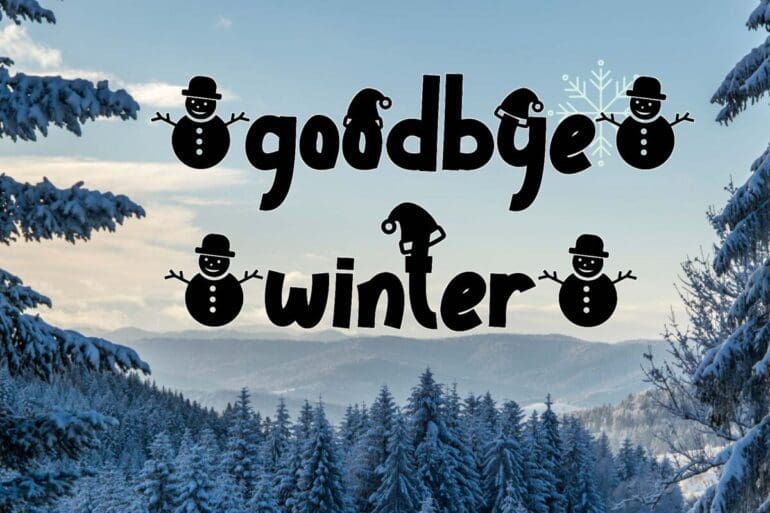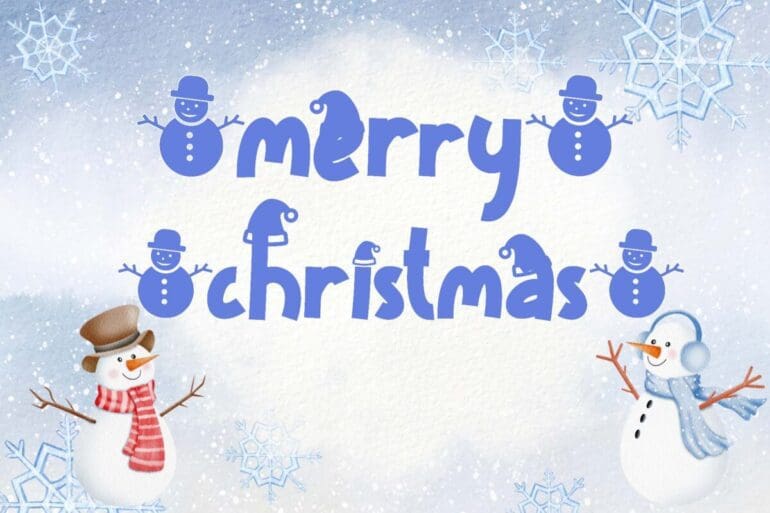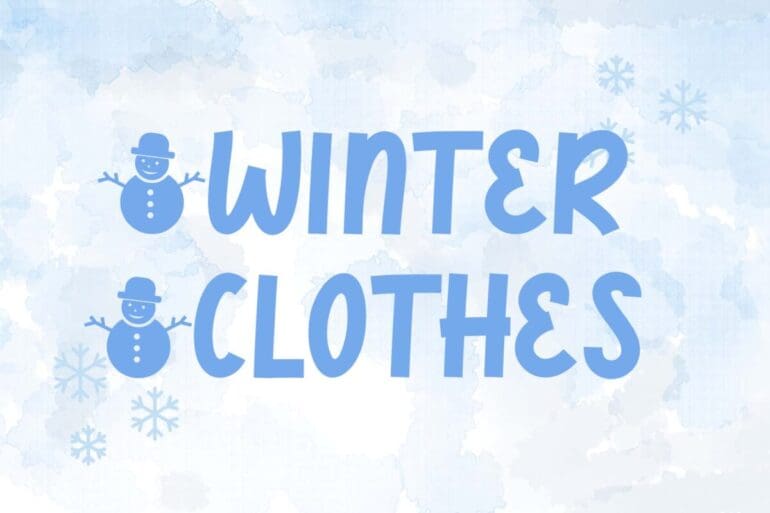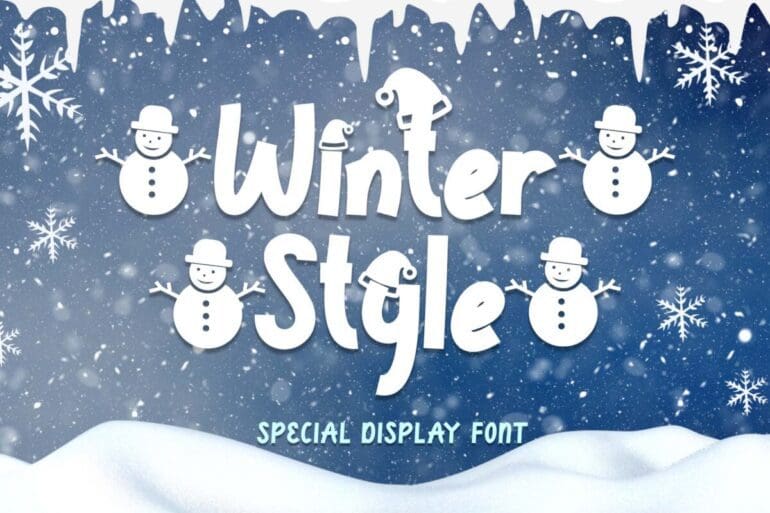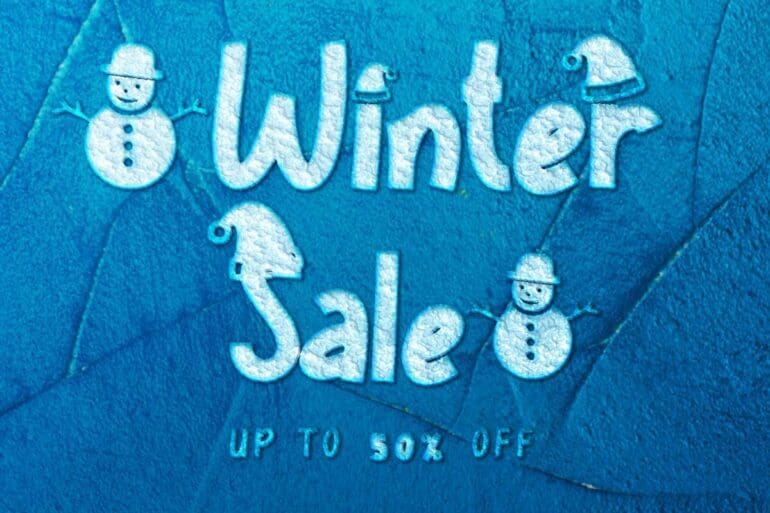
Winter Style Font
Winter Style is a Display Font with winter and Christmas themes. This font is decorated with a snowman as well as a Christmas hat. This font is equipped with uppercase, lowercase, uppercase alternates, swash, titling, lowercase alternates, numeral, punctuation and multilingual support. Perfect for Christmas, winter, valentines, movie titles, logos and more.